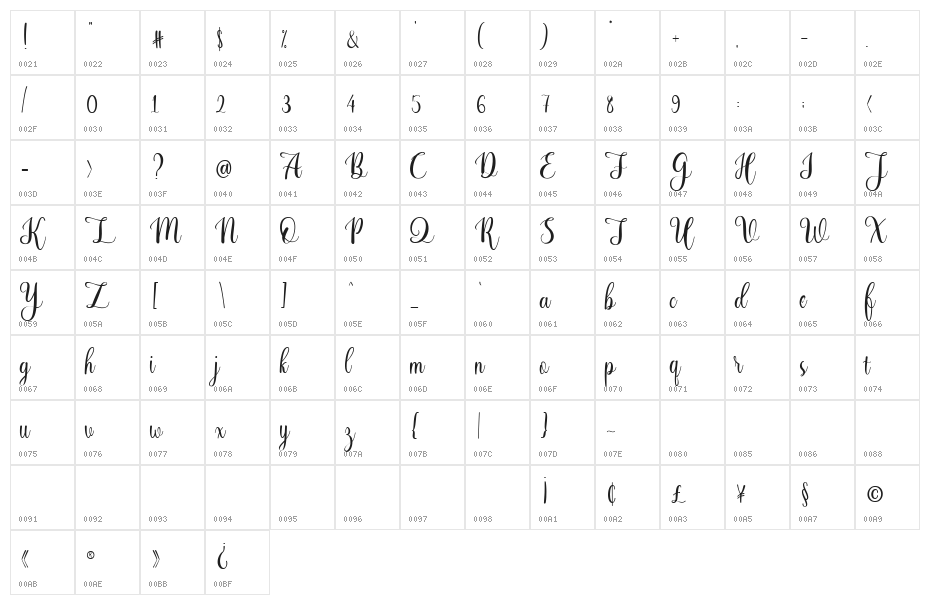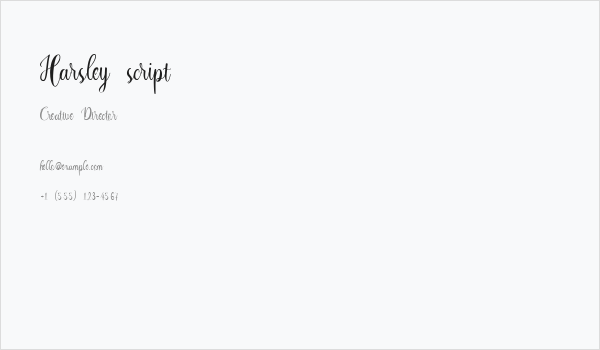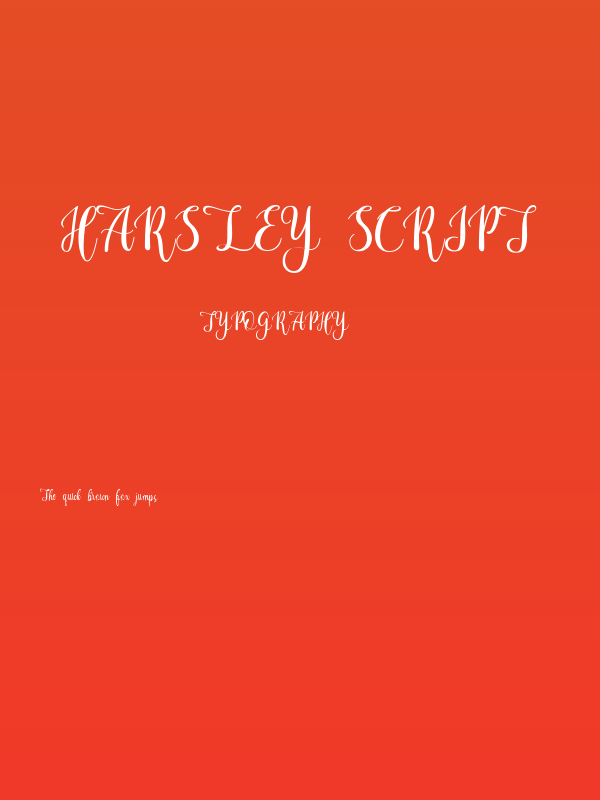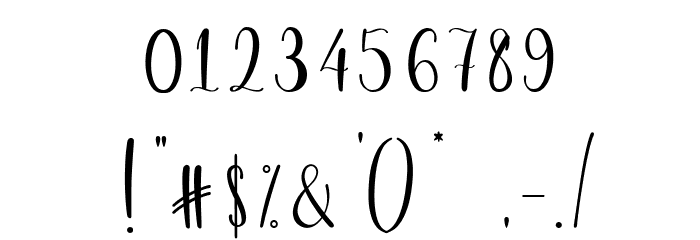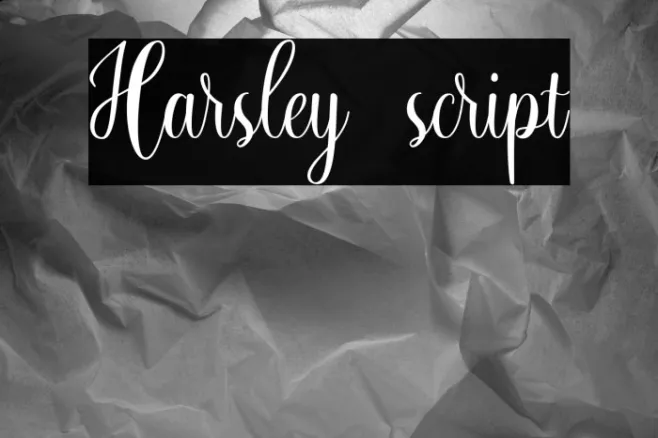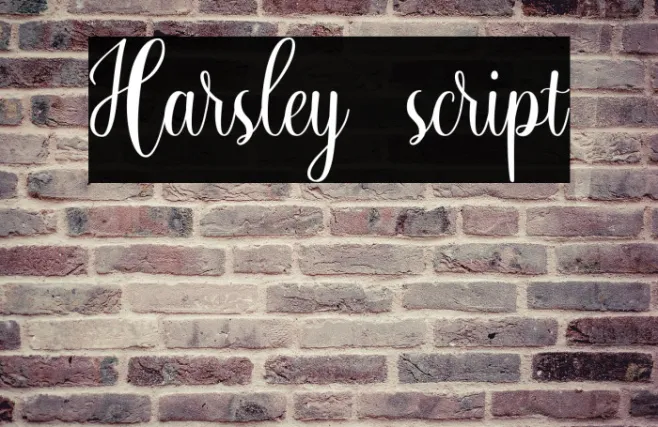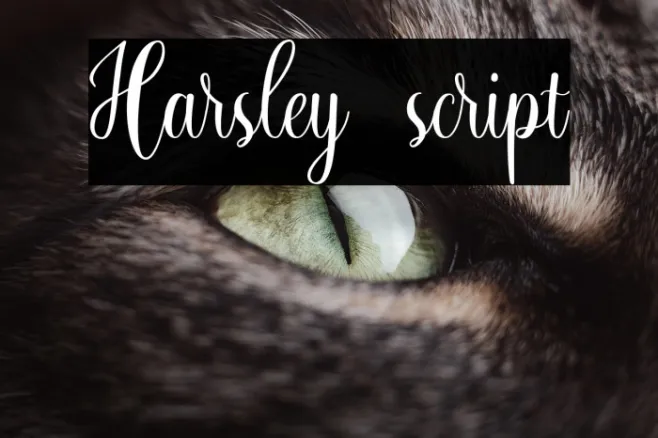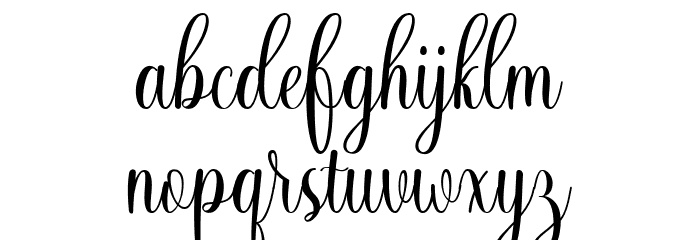
Harsley script Font
Harsley script Description
This elegant script font features fluid, cursive strokes that create a sense of movement and grace. The uppercase letters are characterized by their sweeping curves and loops, while the lowercase letters maintain a consistent flow with slightly exaggerated ascenders and descenders. The numerals are designed with a similar flair, ensuring a cohesive look across all characters. Special characters are seamlessly integrated, maintaining the font's overall aesthetic. This font exudes a sense of sophistication and charm, making it ideal for projects that require a personal touch.